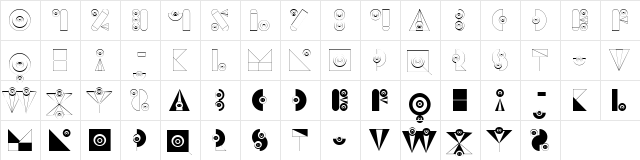
badabum - happyloverstown.eu Regular
| Foundry | jonathan calugi |
Design Context for badabum - happyloverstown.eu Typeface
badabum - happyloverstown.eu is a composed and adaptable typeface that performs quietly and consistently across a wide range of design contexts.